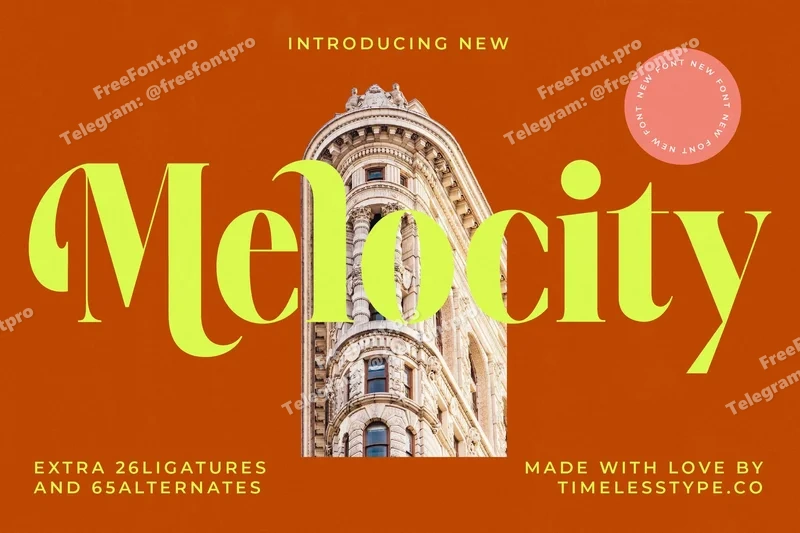
Melocity – Modern Bold Serif
Melocity is a modern bold serif font with refined elegance and striking alternates that make it perfect for standout designs. Featuring stylish ligatures and graceful curves, this typeface is ideal for logos, packaging, posters, invitations, branding, and editorial layouts. Its bold yet classy design ensures versatility for both digital and print projects, bringing a touch of luxury and sophistication to any creative work.